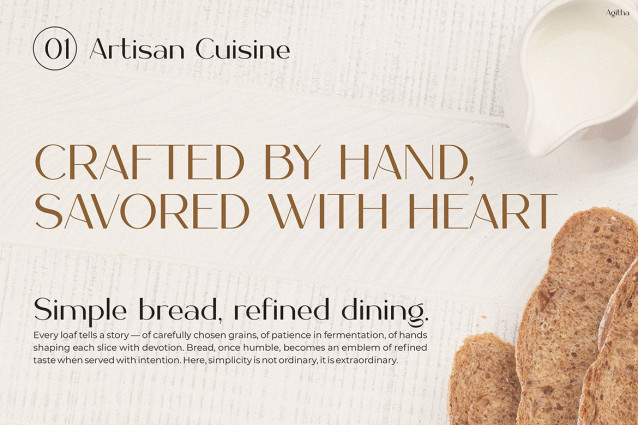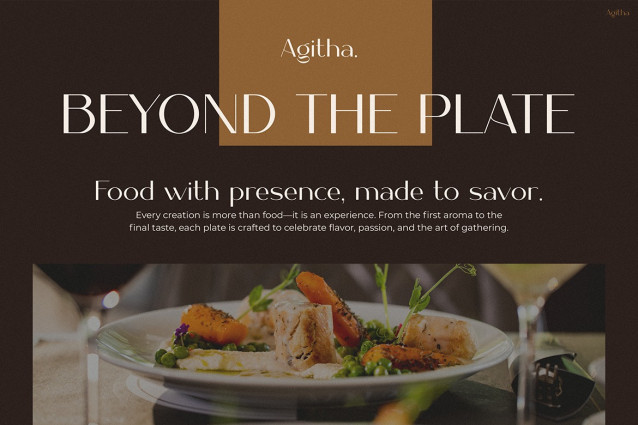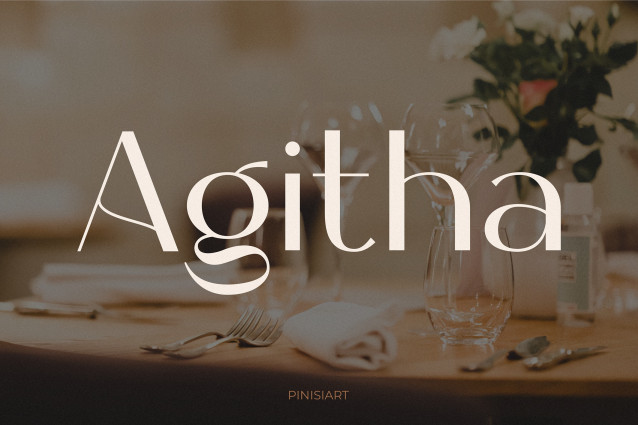
Agitha Font
Agitha Font: Transform words into captivating, attention-grabbing designs. Unlike conventional typefaces, Agitha combines modern sophistication with timeless beauty, creating a look that is both luxurious and warm. Carefully designed curves and sharp details bring harmony to each letter, while balanced proportions keep your text elegant and easy to read. Whether you are branding a new business or managing an Instagram page that needs a polished look, Agitha offers the perfect blend of style and function.
This font not only decorates but also defines your designs. Use Agitha to elevate headlines, create sophisticated menus or design romantic wedding invitations. Every project is more impressive because Agitha ensures your words exude presence, confidence and sophistication.